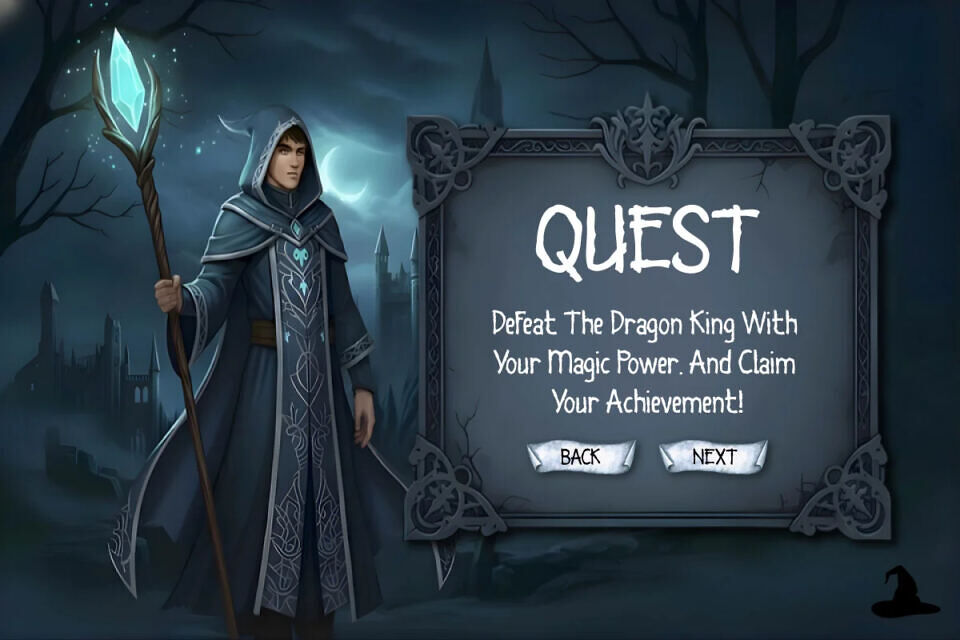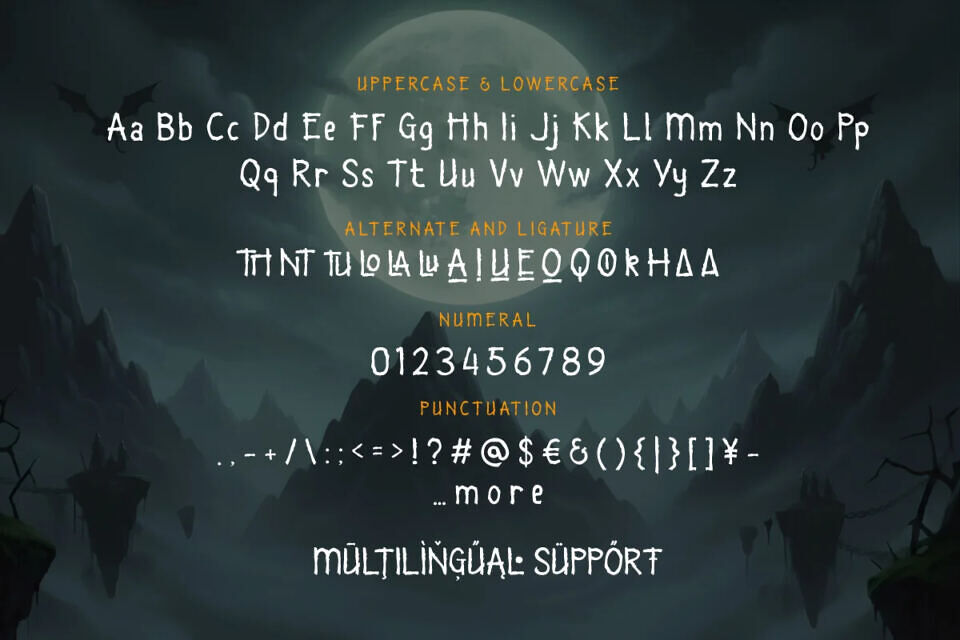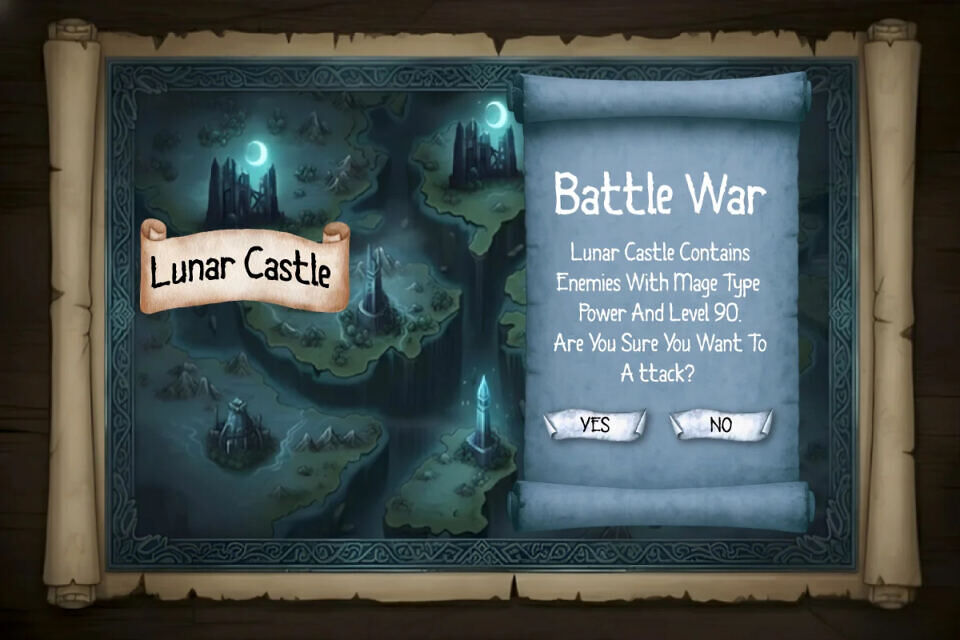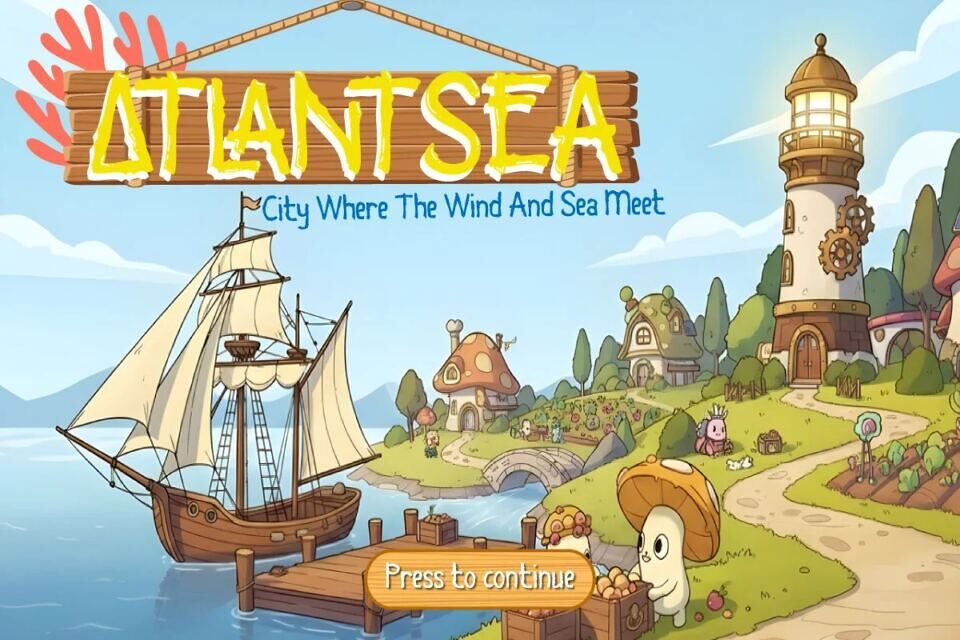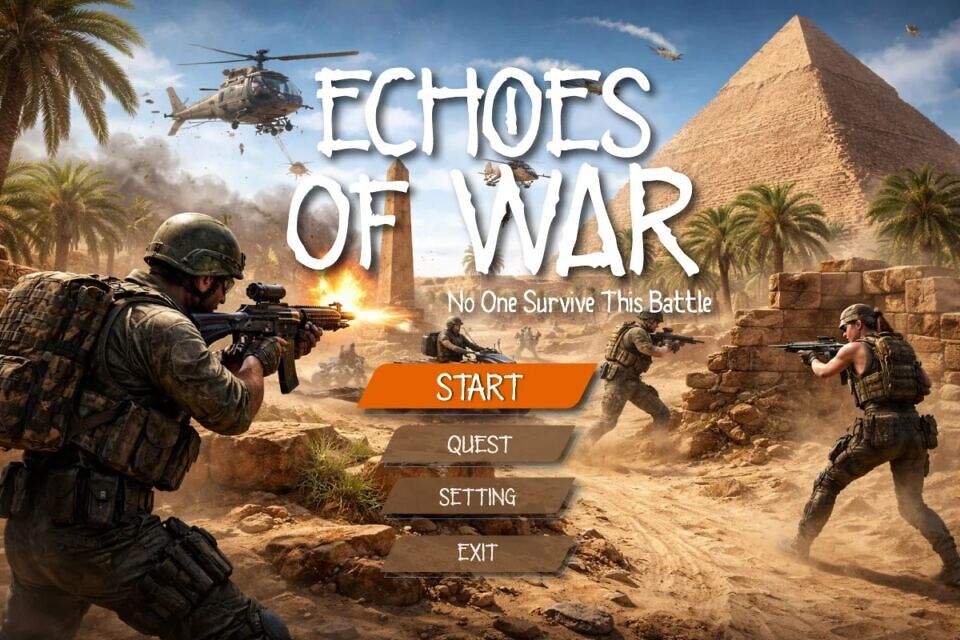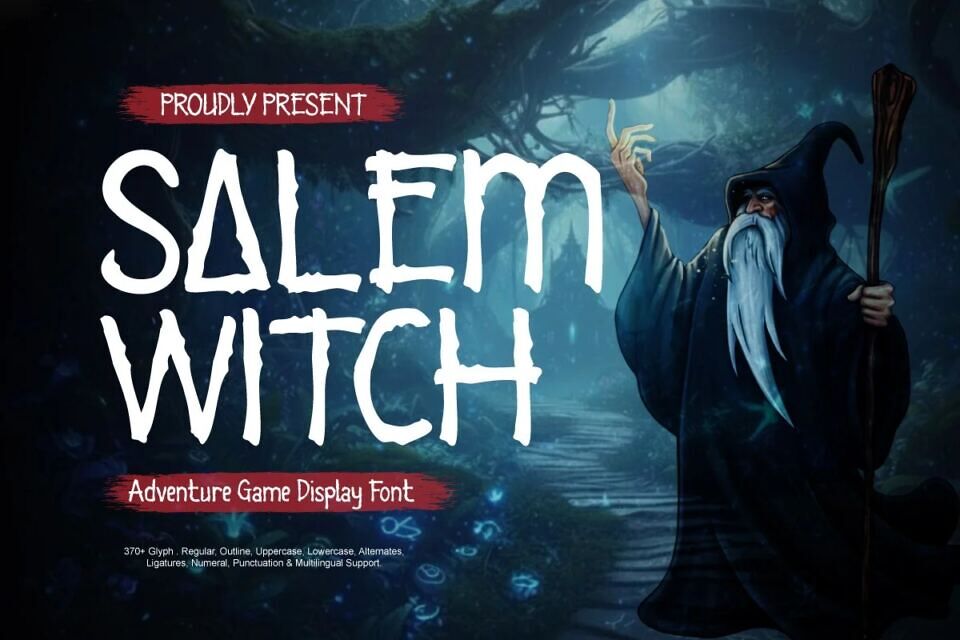
Salem Witch Font
Salem Witch is a bold, hand-drawn display font designed to deliver a high-impact visual experience across various creative genres. Featuring rugged, organic edges and a commanding presence, this typeface captures the essence of mystical legends and epic quests.
While its roots lie in dark fantasy and witchcraft themes, the font’s unique anatomy allows it to adapt seamlessly to modern action settings, historical narratives, and even whimsical adventure styles. It is a perfect choice for designers looking to create an immersive atmosphere that feels both ancient and timeless.